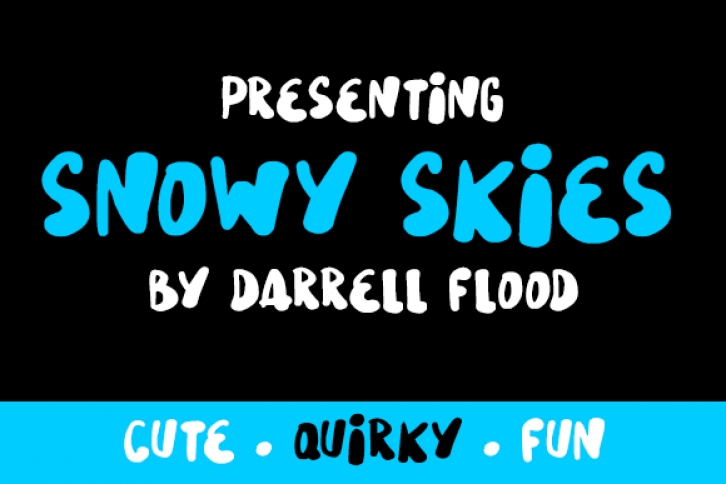
Snowy Skies is a cute, fun, casual font in a blobby, light-hearted hand-drawn style. Handwritten and bold, use Snowy Skies to add boldness to your funnest designs.
Font created by Darrell Flood.